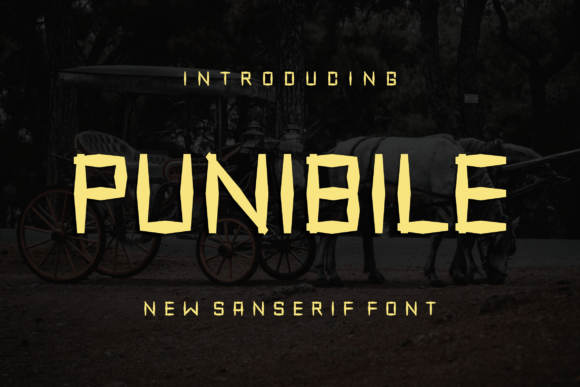
Unleash the Power of Punibile Font: The Epitome of Modernity and Authenticity for Tech Websites
In the realm of digital aesthetics, where technology and design converge, fonts play a pivotal role in shaping the user experience. Introducing Punibile Font, a modern display font that embodies the essence of sleekness and authenticity, meticulously crafted to elevate your tech website to new heights of visual appeal.
Punibile, a brainchild of kalingga.albert, is a typographic masterpiece that exudes a slim and authentic aura. Its meticulously designed characters dance across the screen with grace and precision, captivating the eyes and leaving a lasting impression. Whether you're a seasoned designer or just starting your creative journey, Punibile is your perfect companion, ready to transform your tech website into a visual masterpiece.
Immerse yourself in the versatility of Punibile, a font that effortlessly adapts to a myriad of branding endeavors. From logos that demand attention to T-shirt designs that speak volumes, Punibile rises to every challenge with unwavering poise. Delve into the world of Esports, where Punibile's dynamic strokes bring life to your gaming endeavors. The possibilities are endless, limited only by your imagination.
With Punibile gracing your fonts library, prepare to witness an instant transformation. Its captivating charm will instantly endear it to you, becoming an indispensable tool in your creative arsenal. Experience the sheer joy of crafting designs that resonate with your audience, leaving them spellbound by the sheer brilliance of your creations.